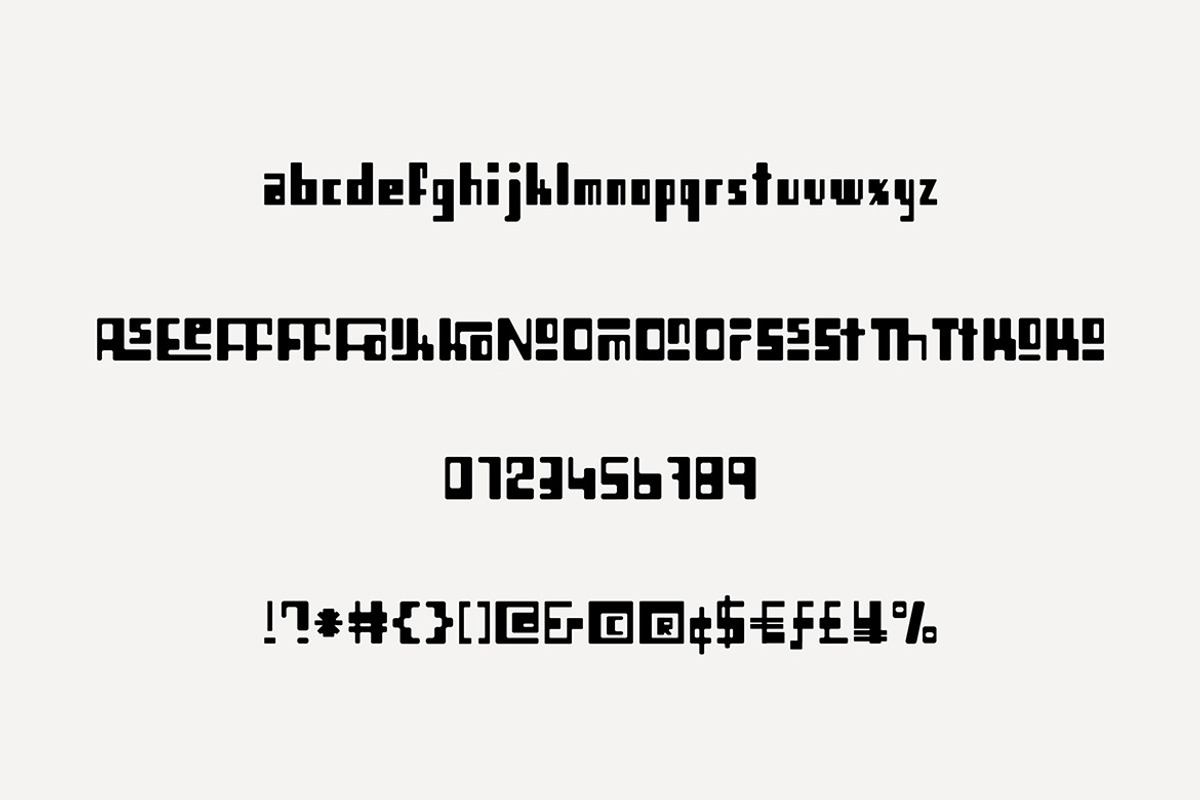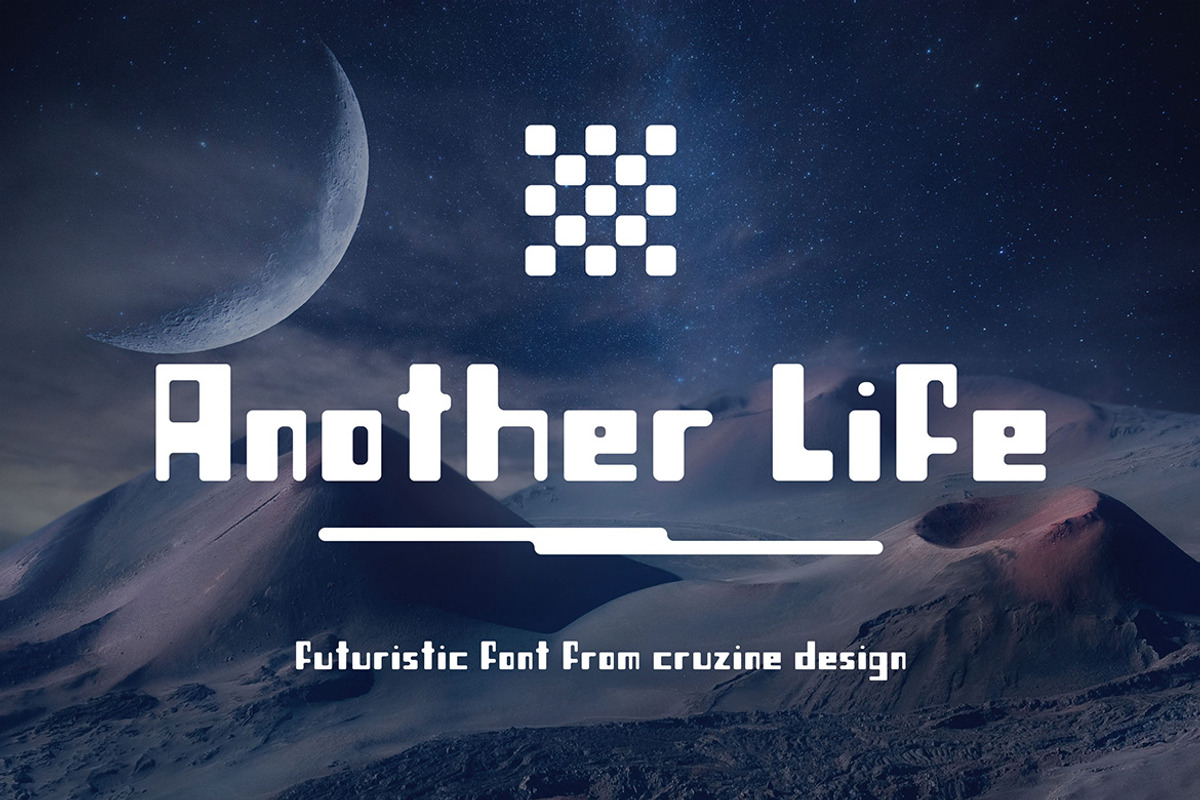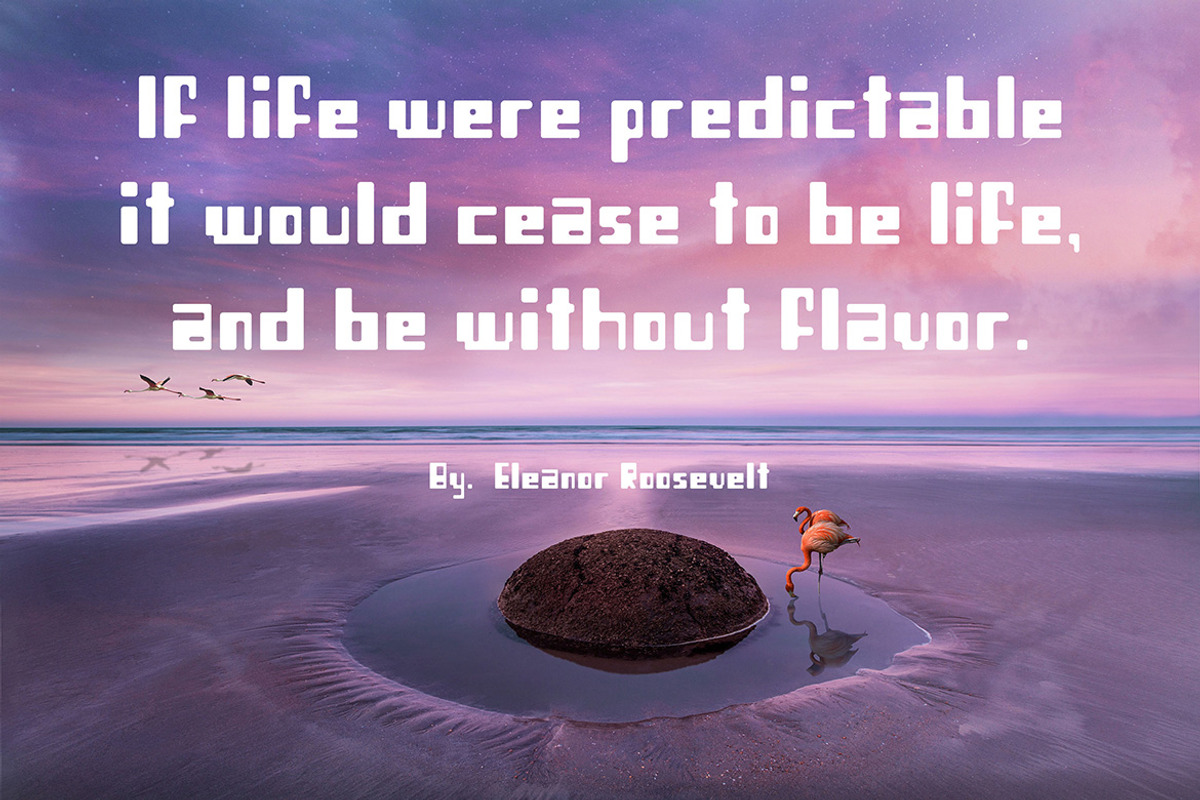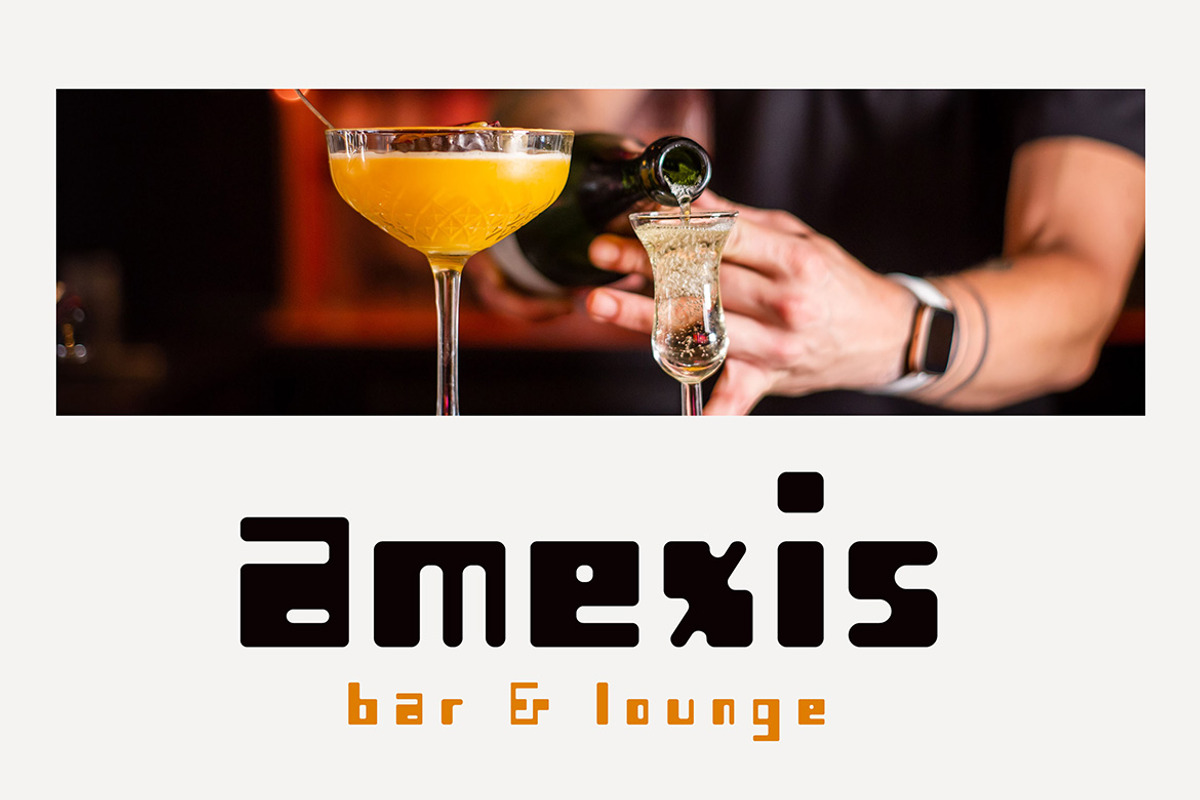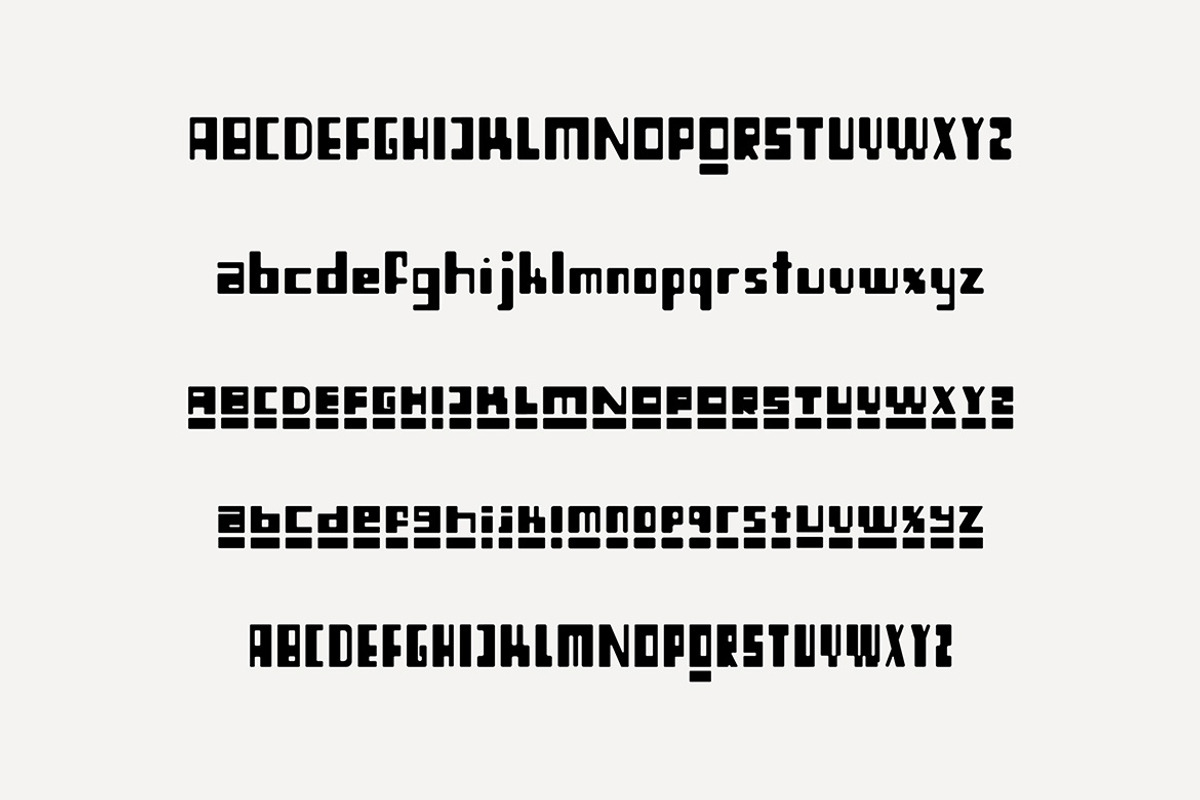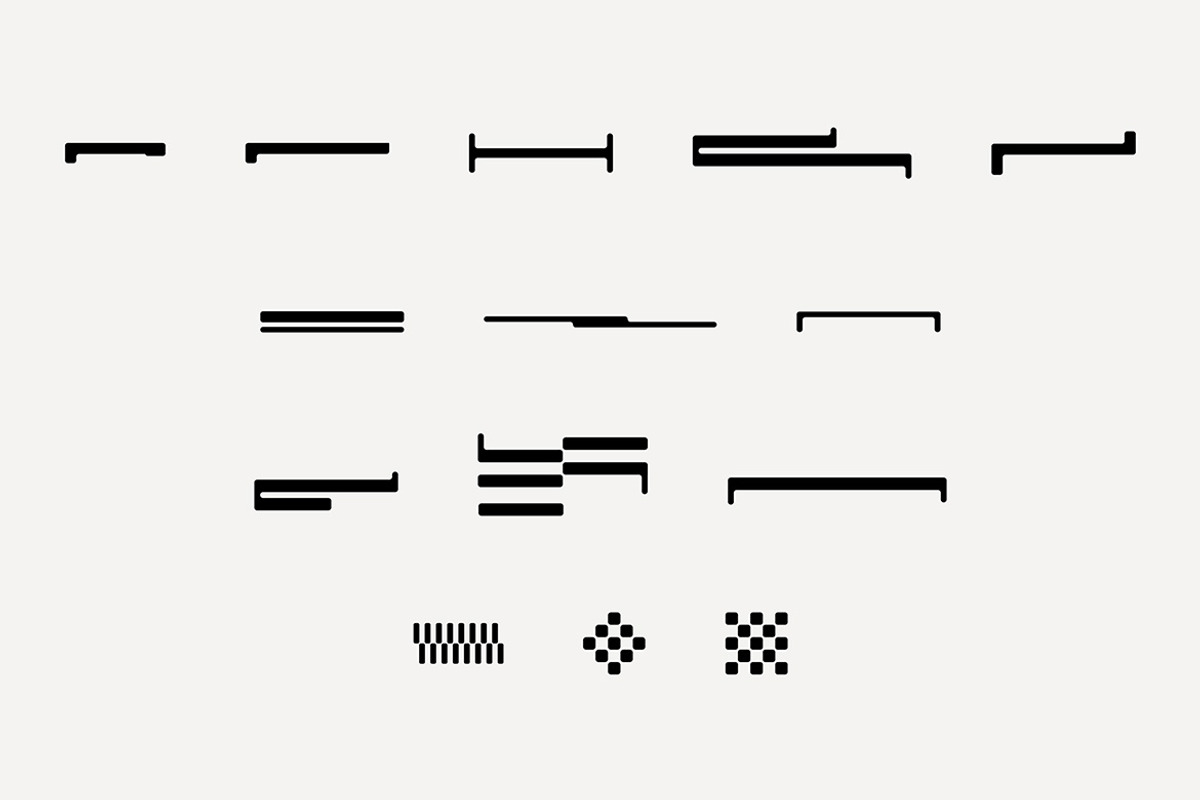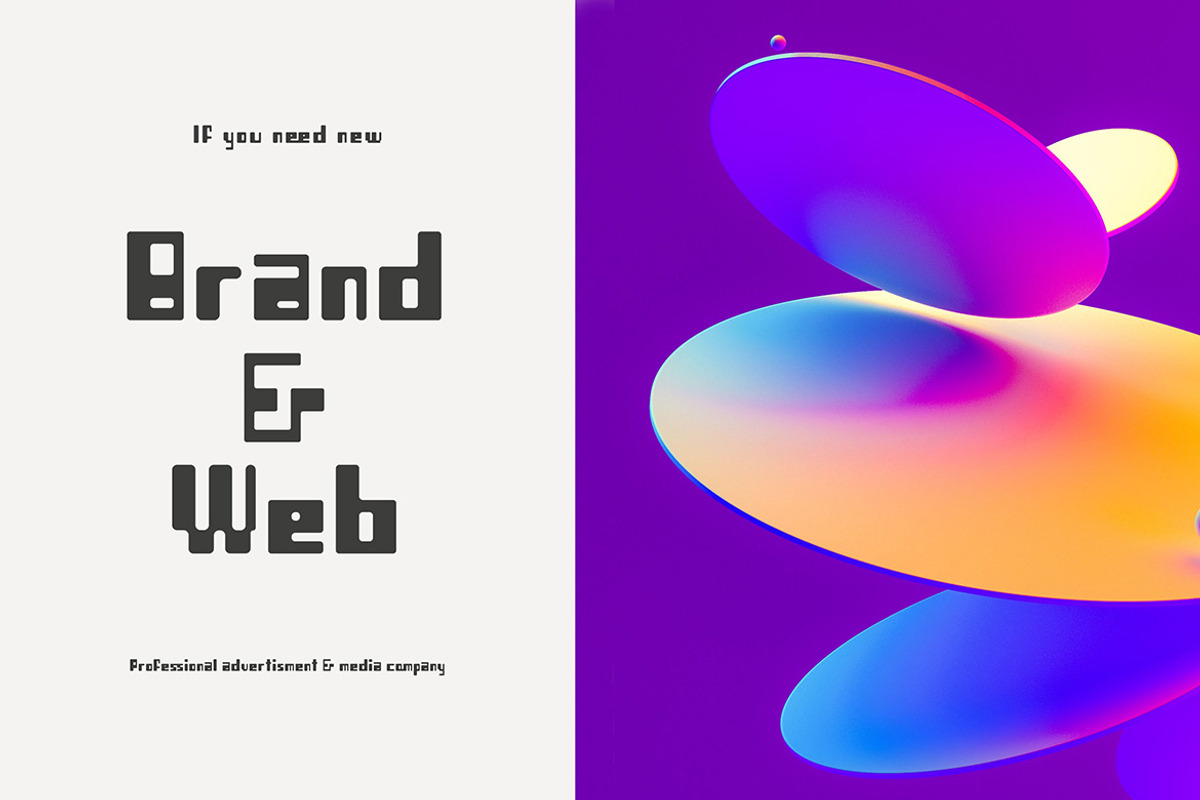
Another Life Rounded Sans
Creative, modern, rounded, unique & decorative sans font for your new projects. With cool rounded & bold style. Great for urban or futuristic projects.
- Great for modern & futuristic branding projects